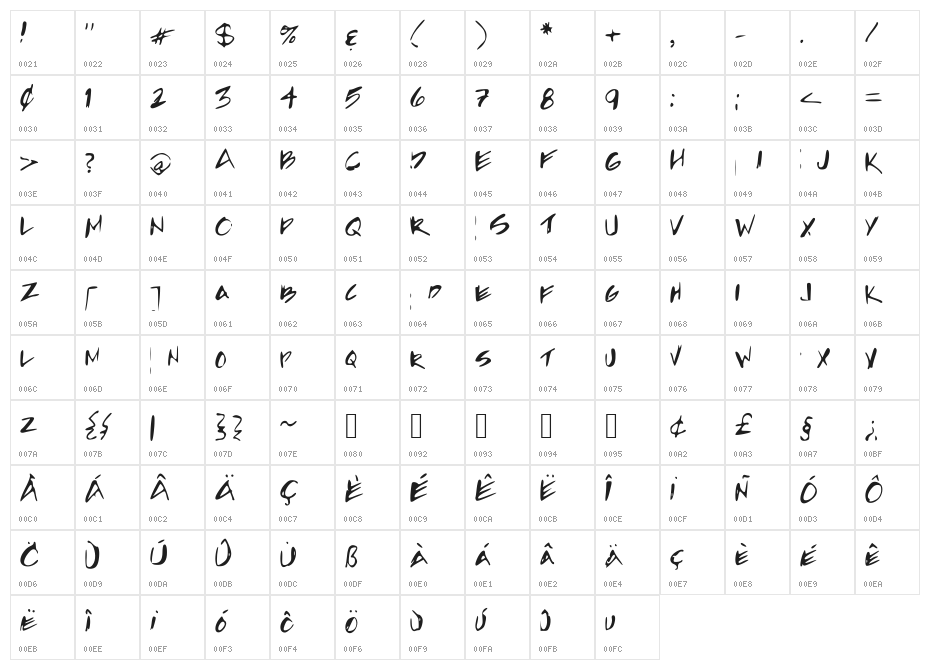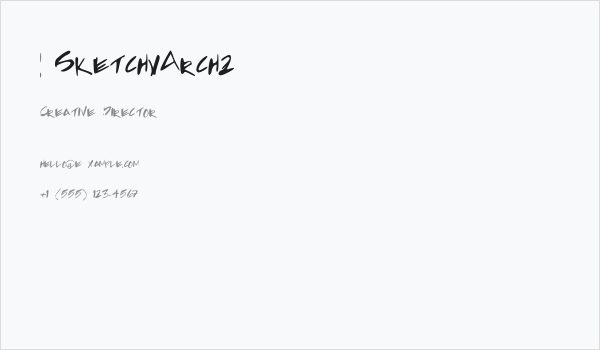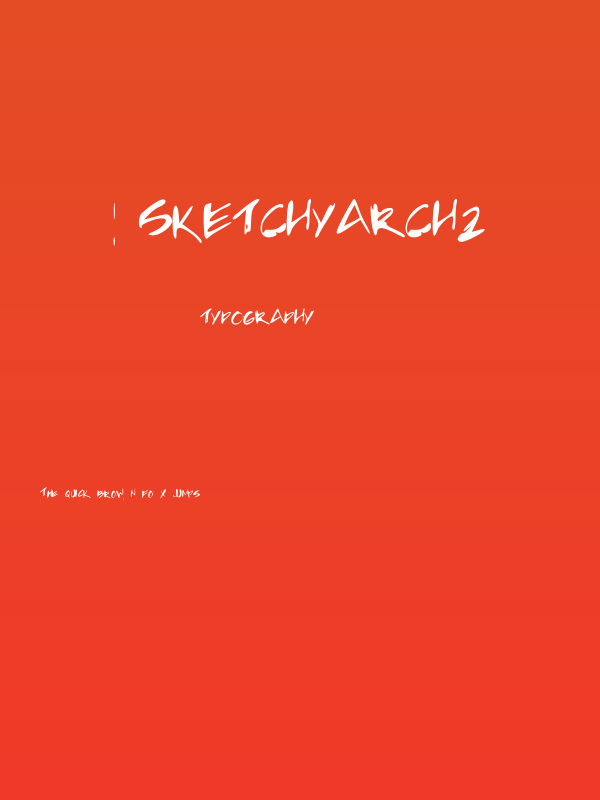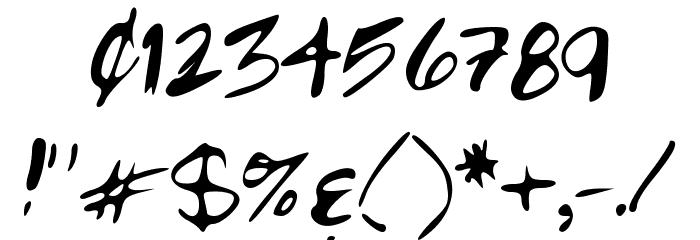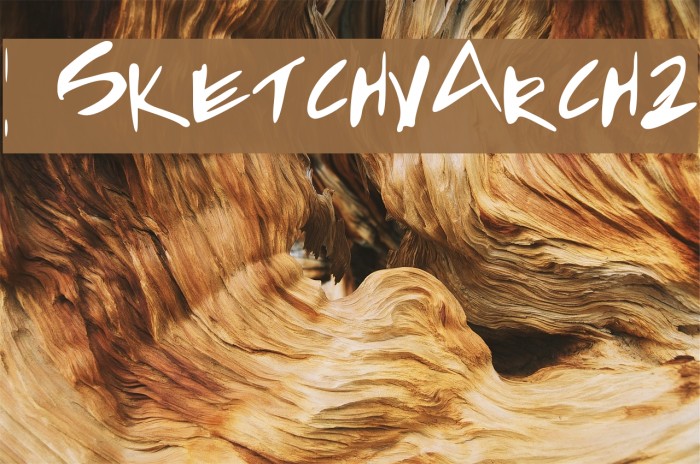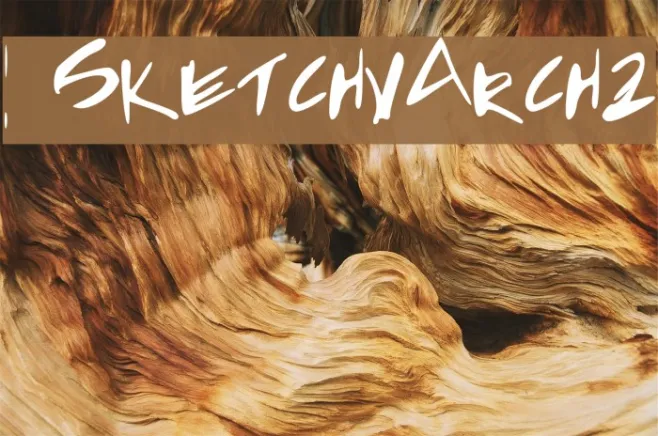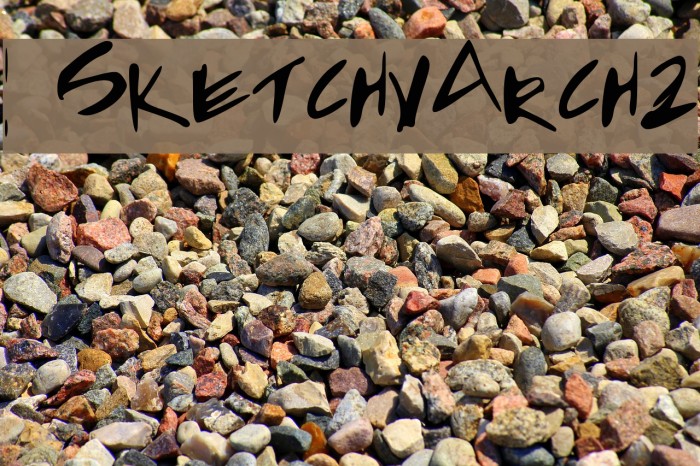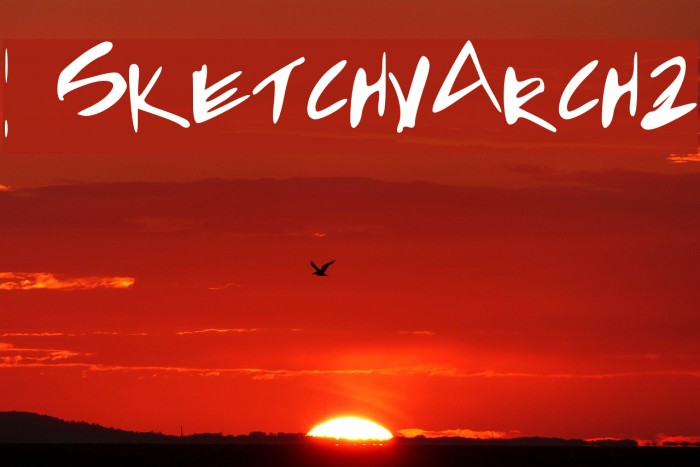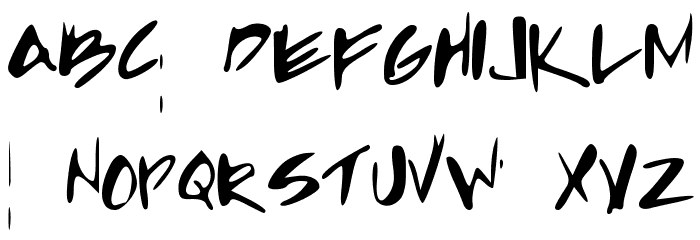
SketchyArch2 Font
SketchyArch2 Description
This font exudes a dynamic and energetic feel with its bold, brush-like strokes that give it a hand-drawn appearance. The characters are slightly slanted, adding a sense of movement and fluidity. The uppercase and lowercase letters maintain a consistent style, with varying thickness in the strokes that create a lively contrast. The numbers and special characters follow the same energetic style, making them stand out with their unique flair. This font is perfect for projects that require a personal touch or a creative edge, such as posters, invitations, or branding materials.
| Proposed Projects | Ideal for creative projects like posters, invitations, and branding materials. |